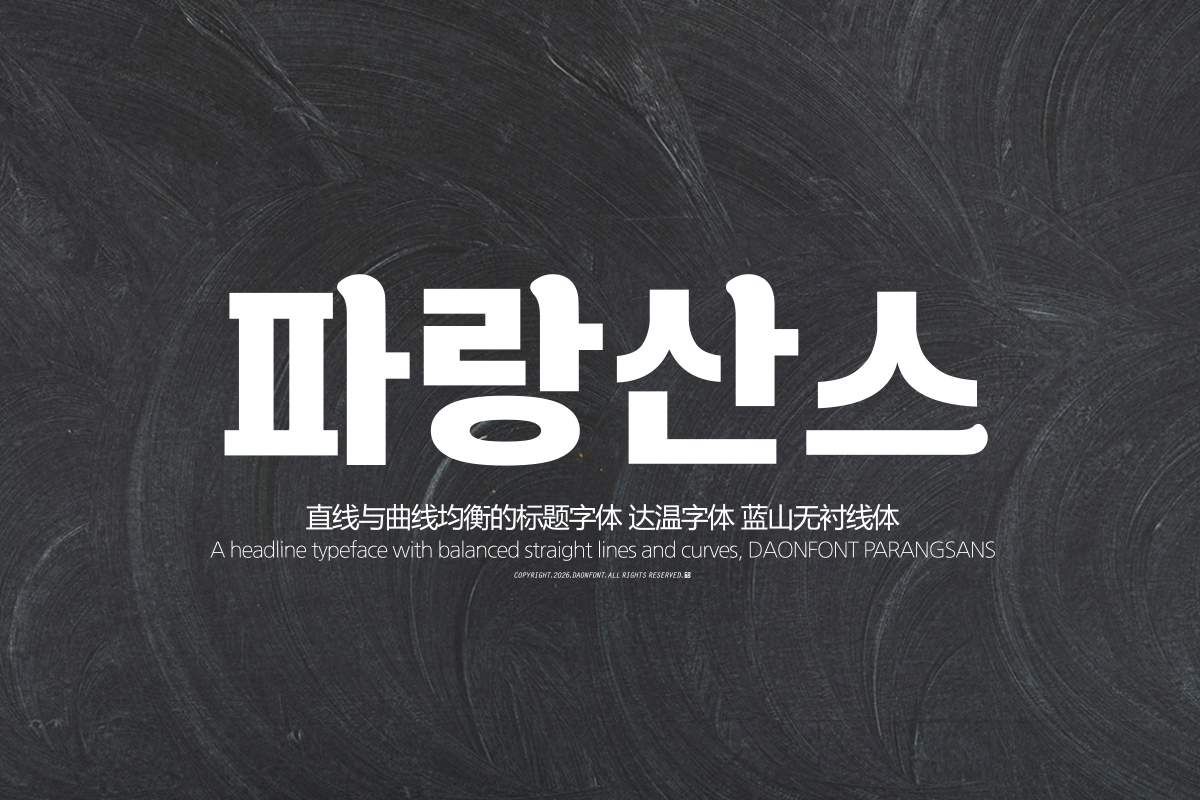
DAON PALANGSANSEU
'PALANGSANSEU' is a Hangul typeface that simultaneously captures the power of weighty straight lines and the warmth of soft curves. The 'Parang' in its name embodies both the power surging like waves and the freedom permeating like the wind, conveying a visual impression that balances solidity with freshness. The harmony between the power of straight lines and the warmth of curves creates a vivid yet sophisticated typographic atmosphere.